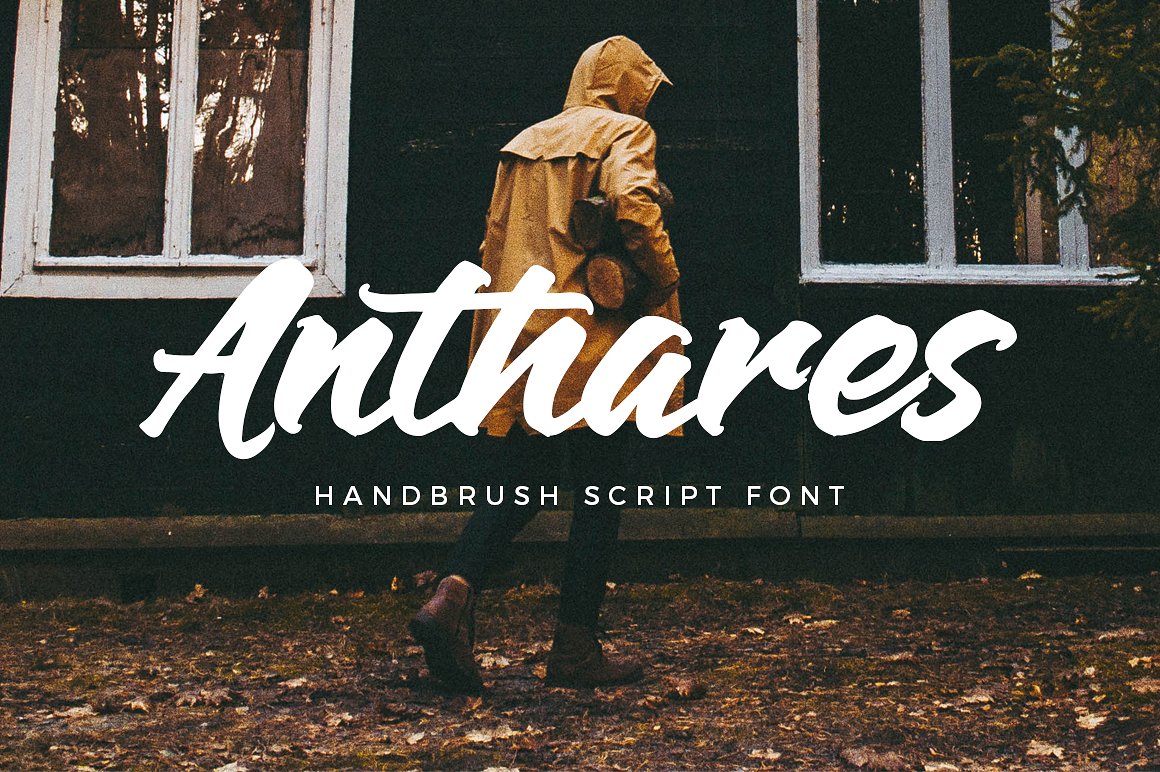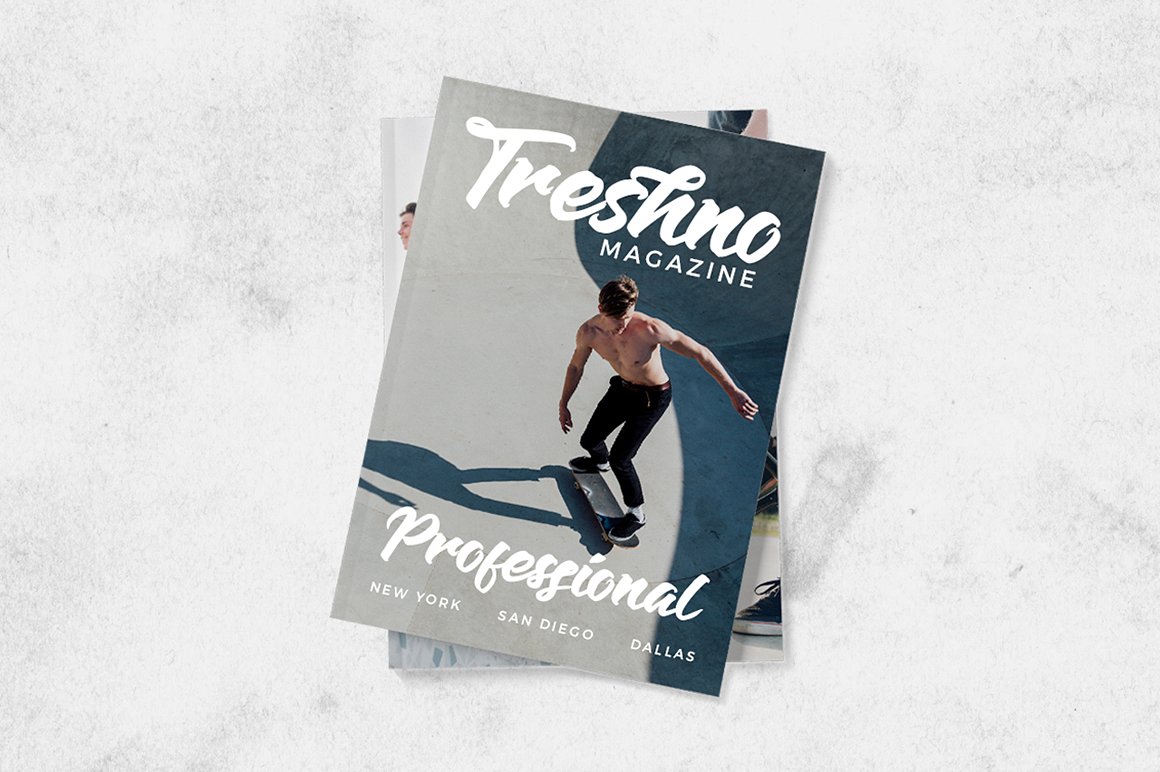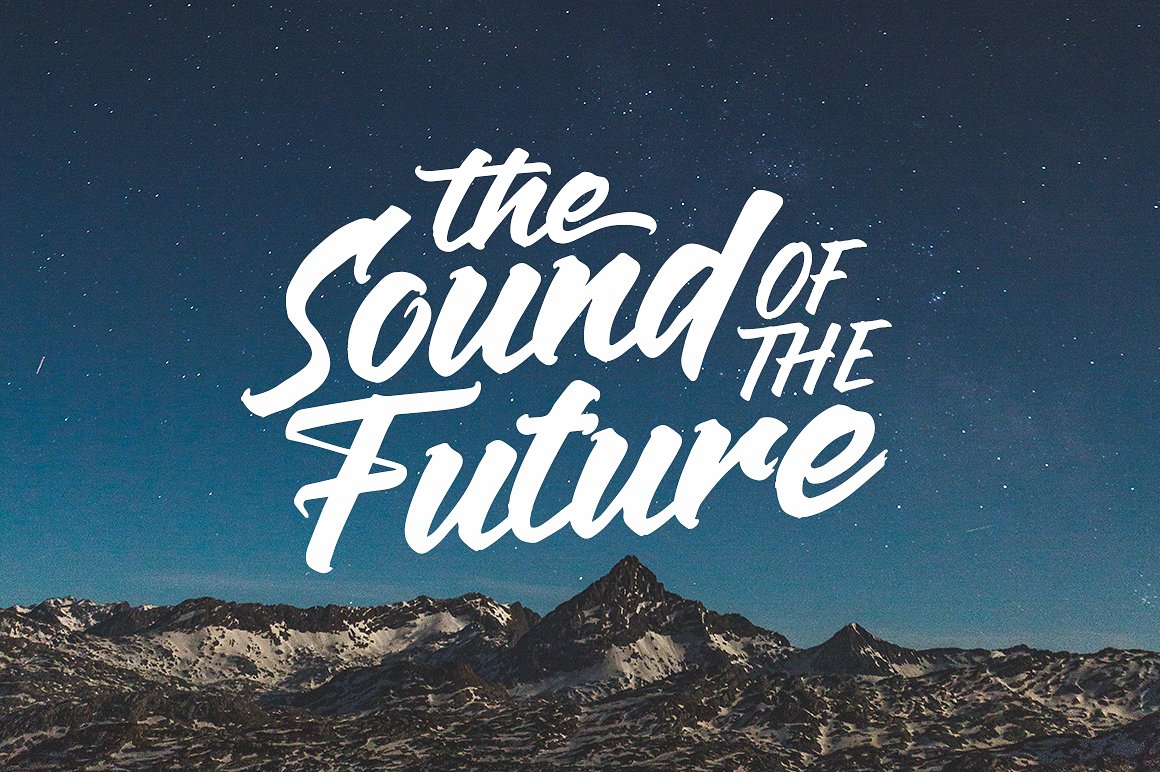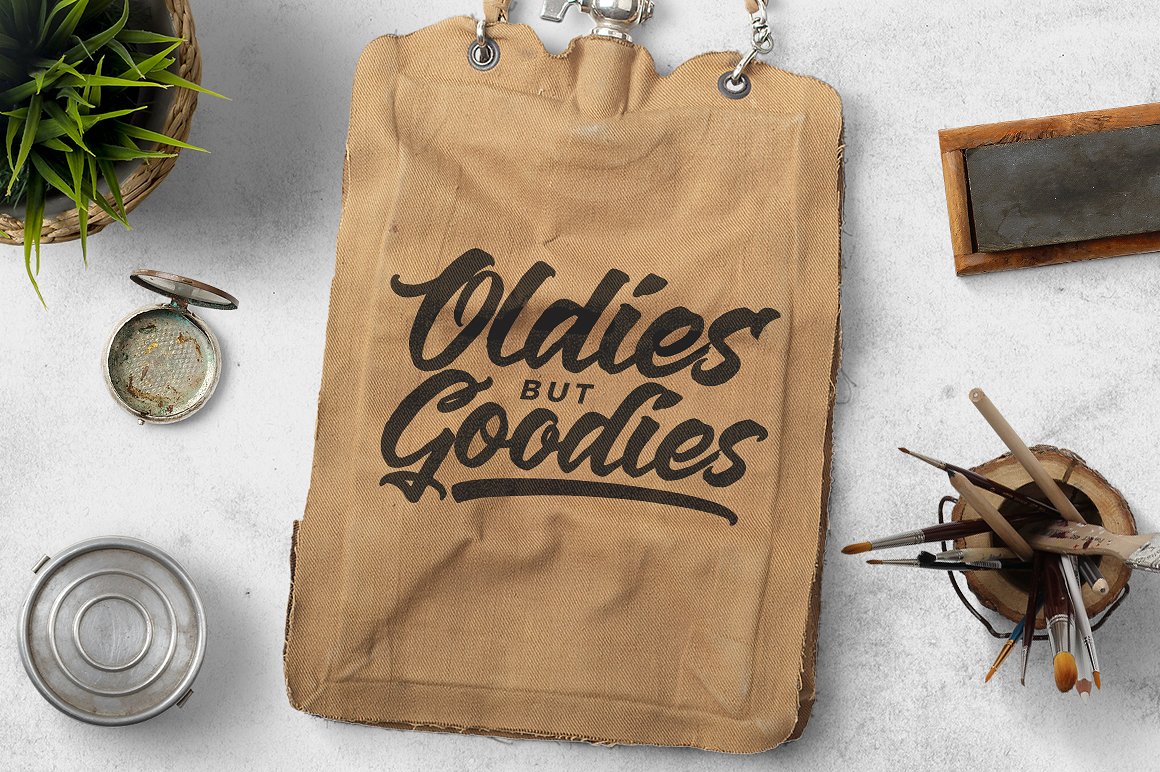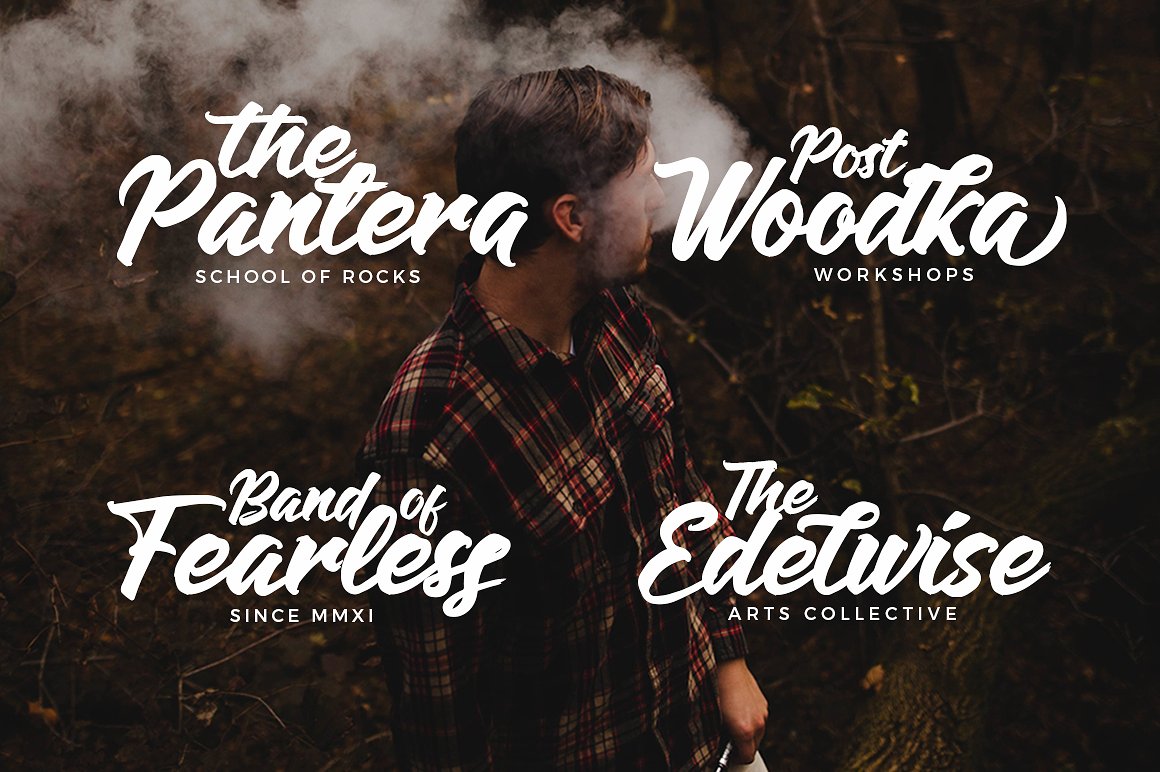
Anthares Free Font
Anthares Free Font is the new hand brush font with dramatic movement and good styles, It’s allowing you to create amazing hand-lettering typography in an instant. Anthares Font comes with uppercase, lowercase, numerals, punctuations and so many variations on each character include OpenType alternates, common ligatures, and also additional swash. Perfect to use for Logotype, Letterhead, Poster, Apparel Design, Label and etc. This free typeface was designed by talented Wacaksara Co. If you like it don’t forget to check out the full version.